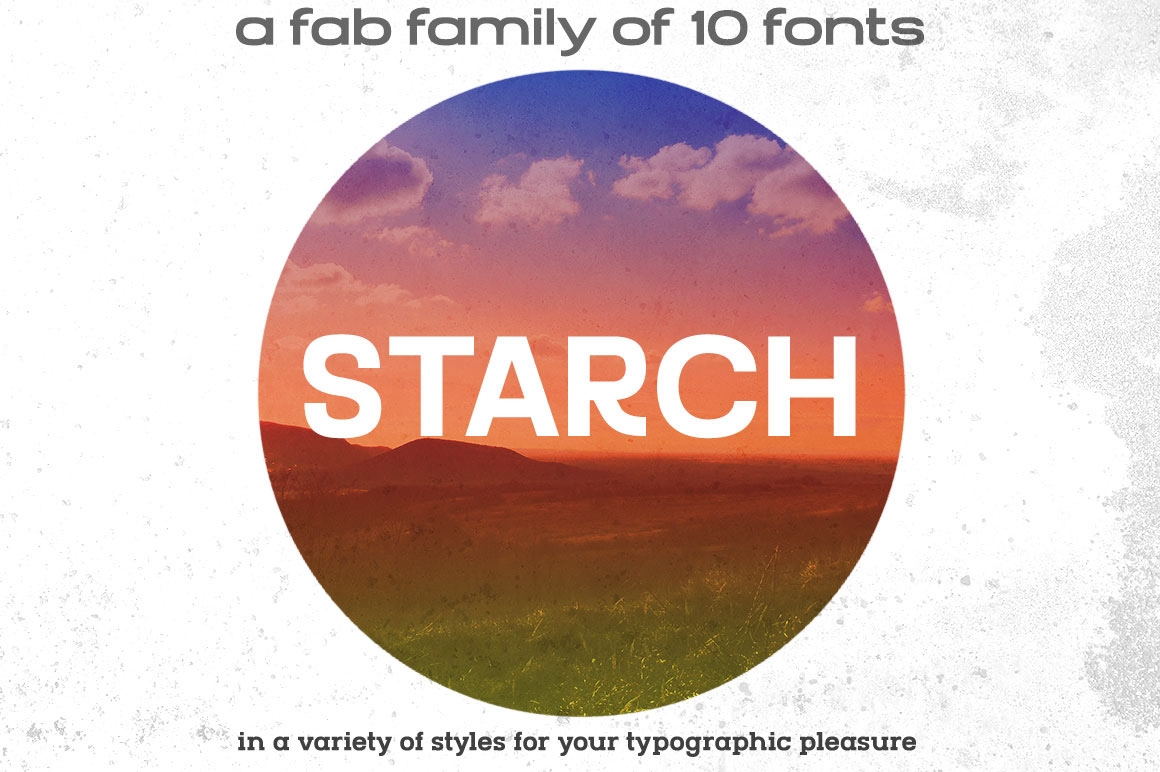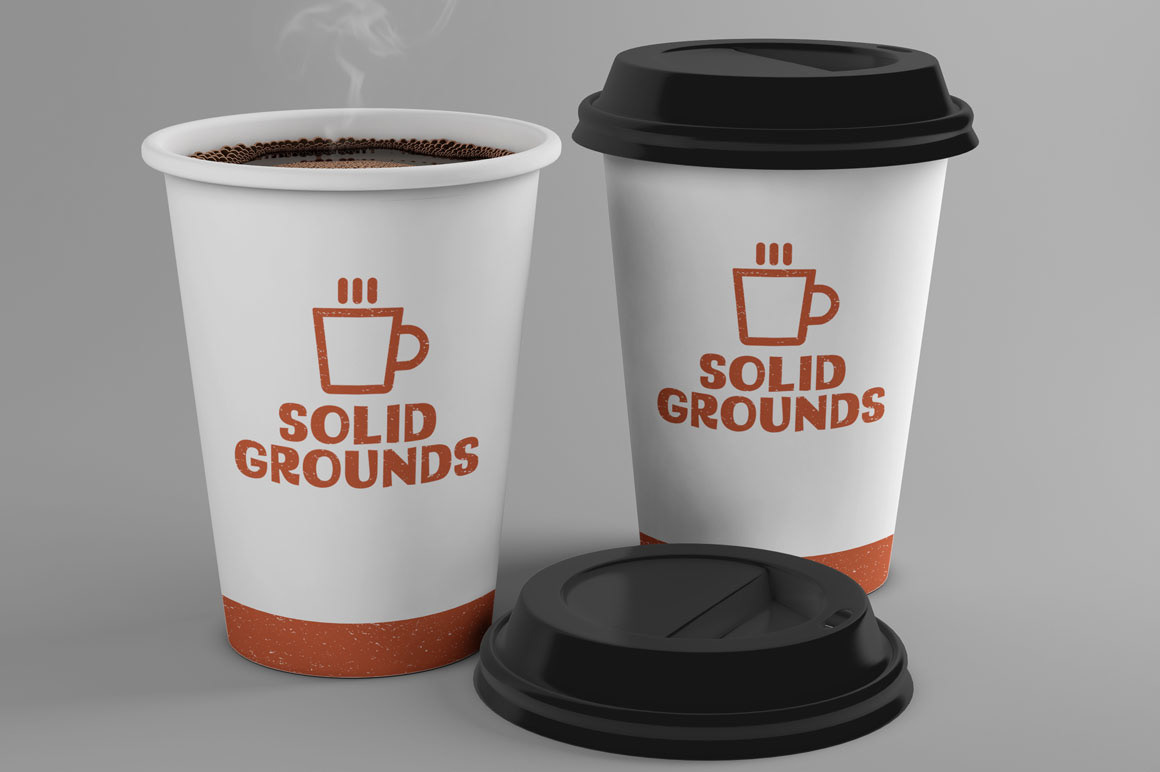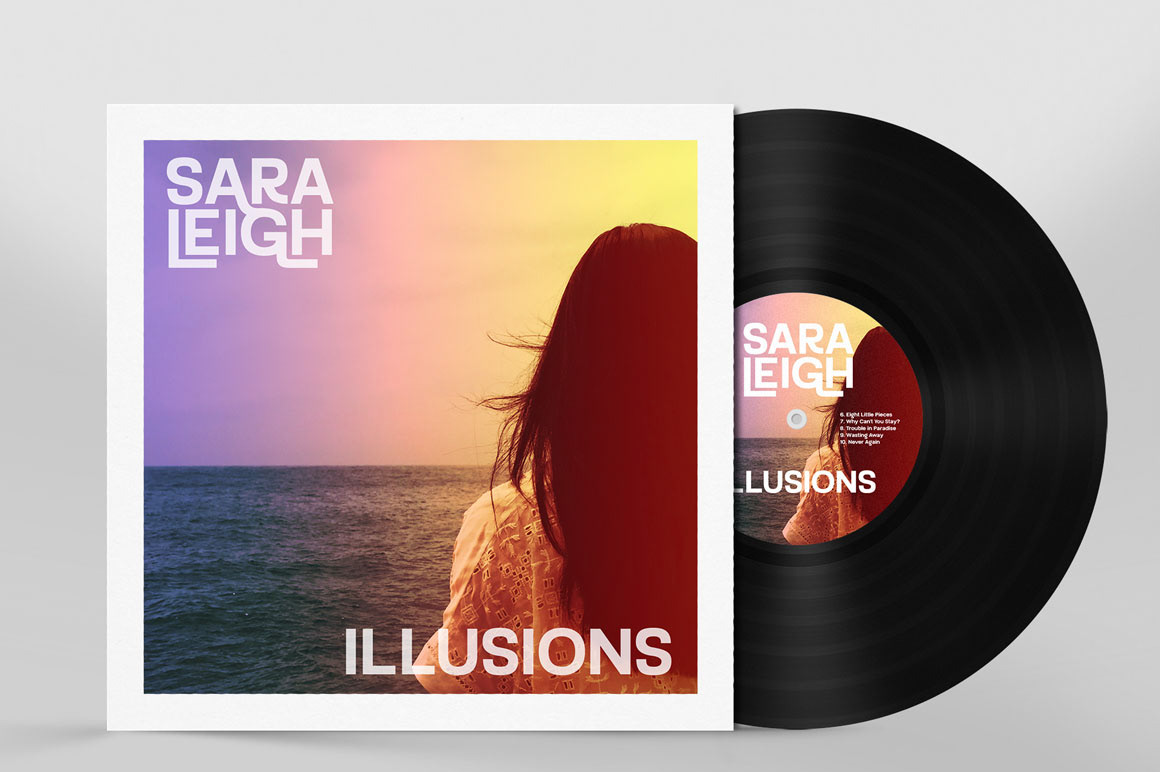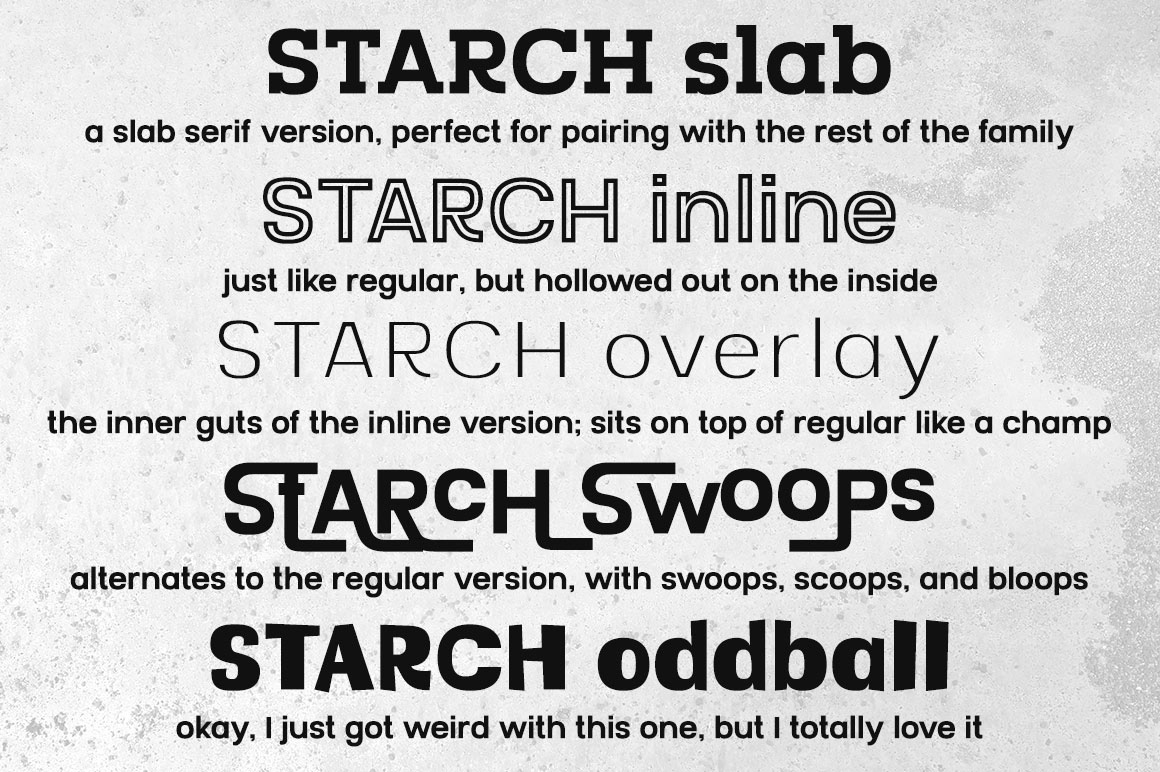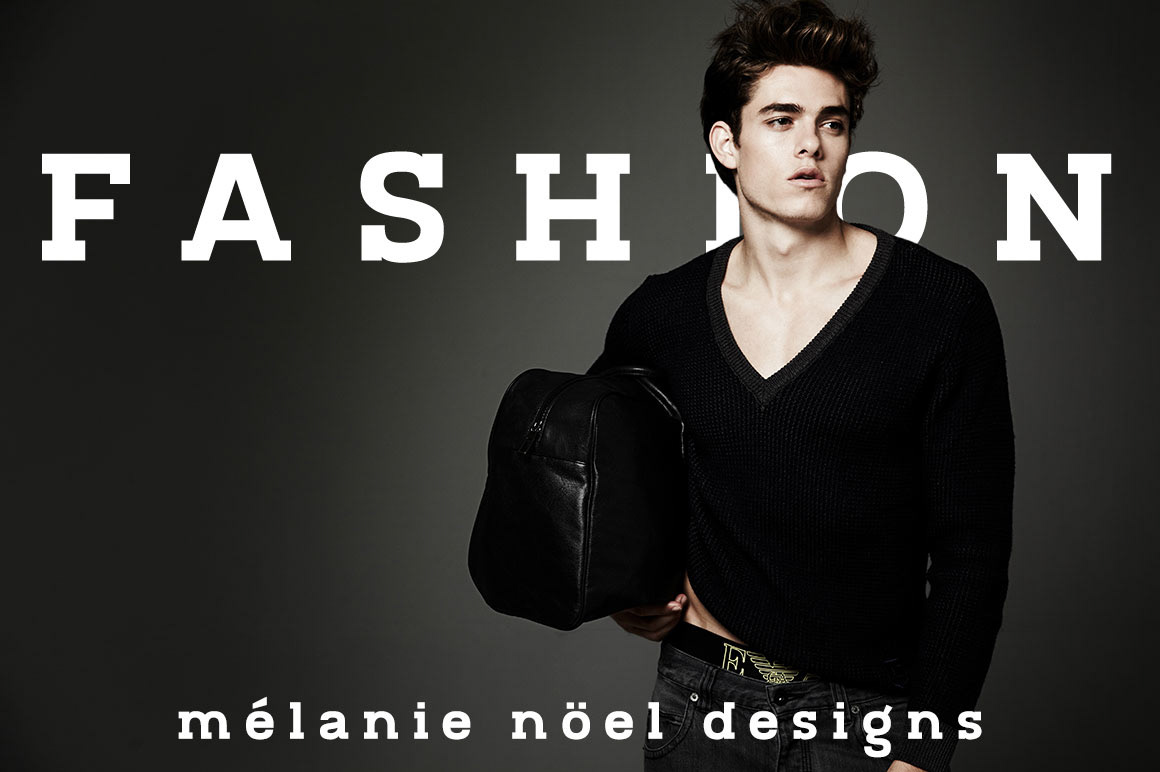
Starch: Not only is it delicious (I’m looking at you, pasta and potatoes), but it’s also slang for both something stiff and formal, and for backbone, moxie, and gumption. I figured that suited this font perfectly! The base is a crisp sans-serif, built on graph paper and refined with sharp lines and corners, but with a little hand-made flair to the curves.
- Starch Regular (a classic modern sans-serif)
- Starch Italic (an italicized version of Regular)
- Starch Extended (a wider version of Regular)
- Starch ExtraWide (a ridiculously wide version of Regular)
- Starch Condensed (a narrow version of Regular)
- Starch Inline (Regular with a hollowed-out middle)
- Starch Overlay (those hollowed-out middles as their own thing, to layer over -Regular)
- Starch Slab (a version of Regular with slab serifs)
- Starch Swoops (alternates to Regular; extend over and under Regular)
- Starch Oddball (a thickened, tilted, goofy, retro version of Regular)
Each of those 10 fonts contains:
- Uppercase, lowercase, numbers, and punctuation
- Over 350 characters total
- Over 200 accented characters for multi-language support
- Stylistic alternates for M, a, g, and &